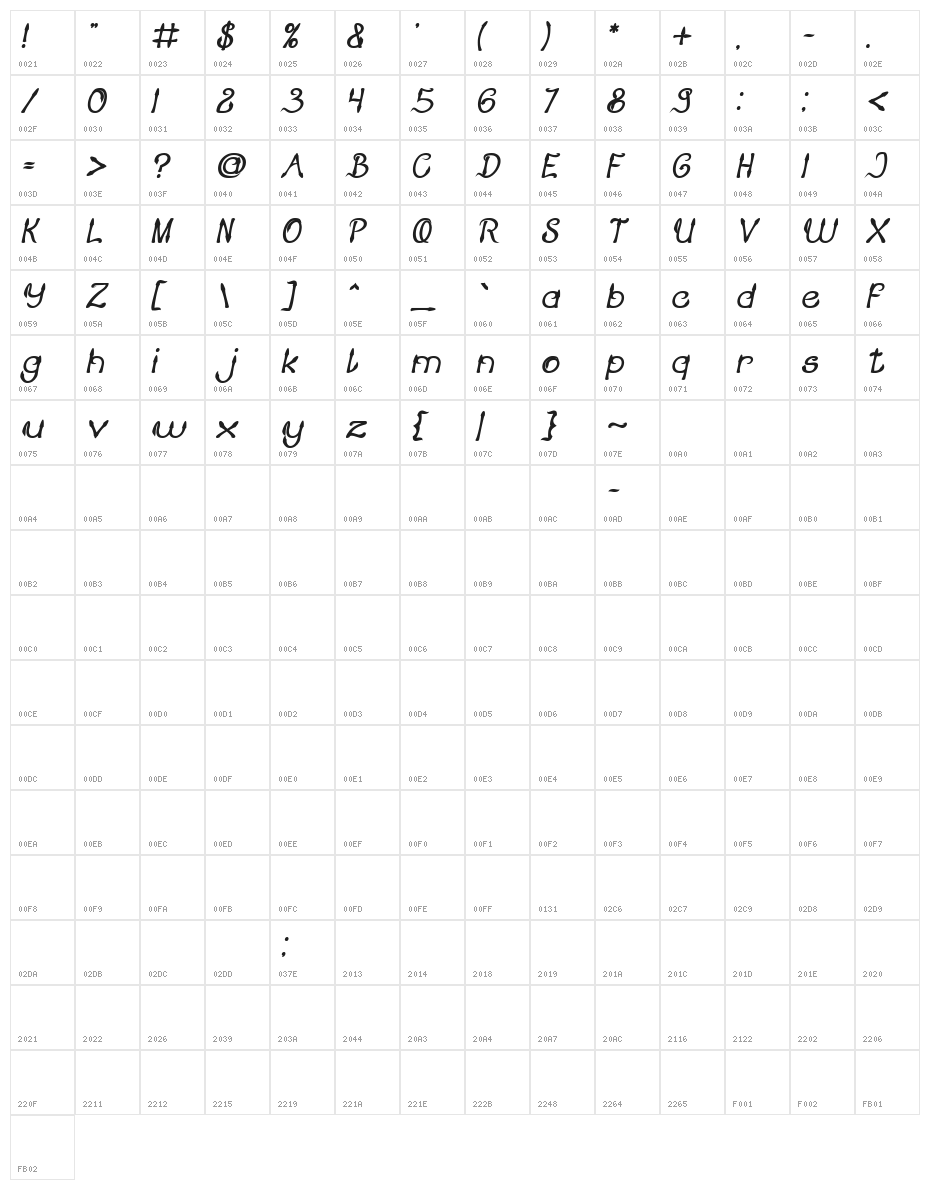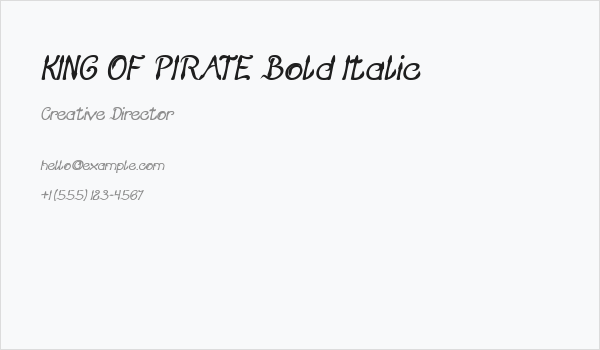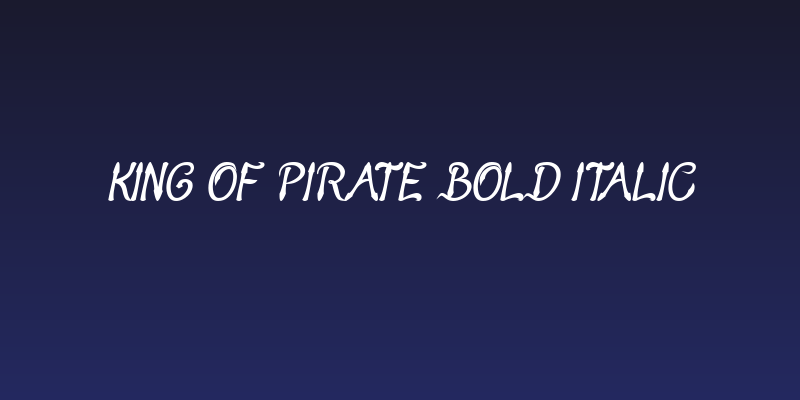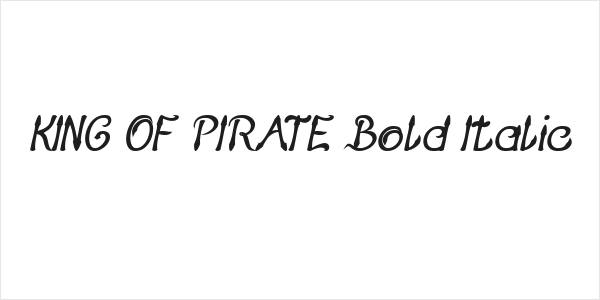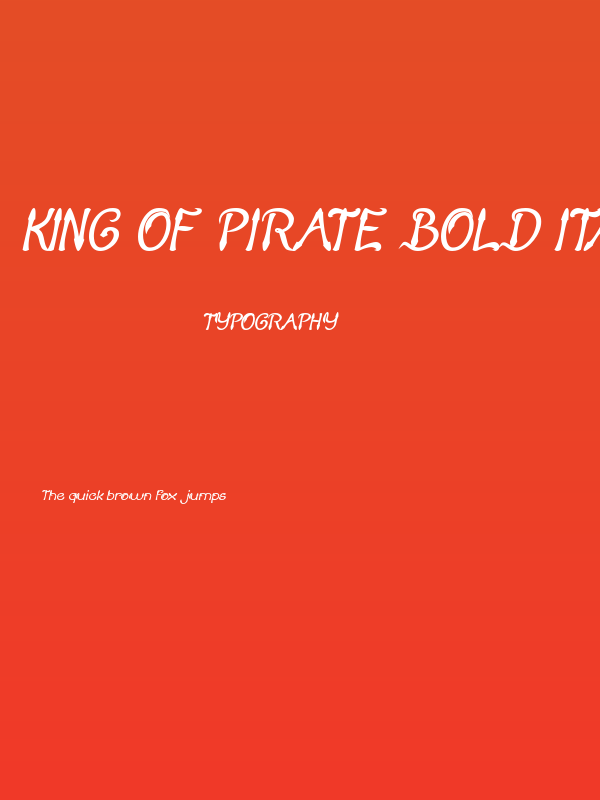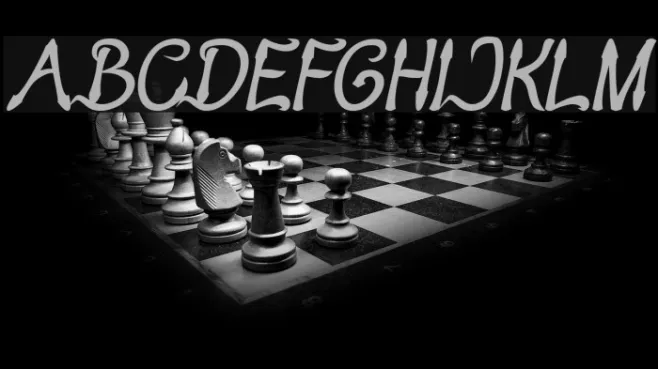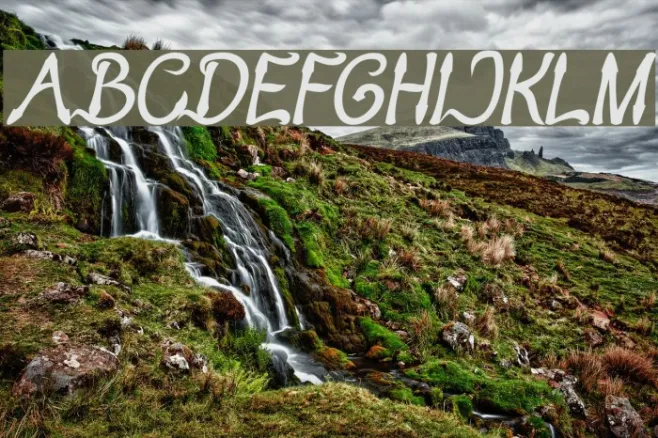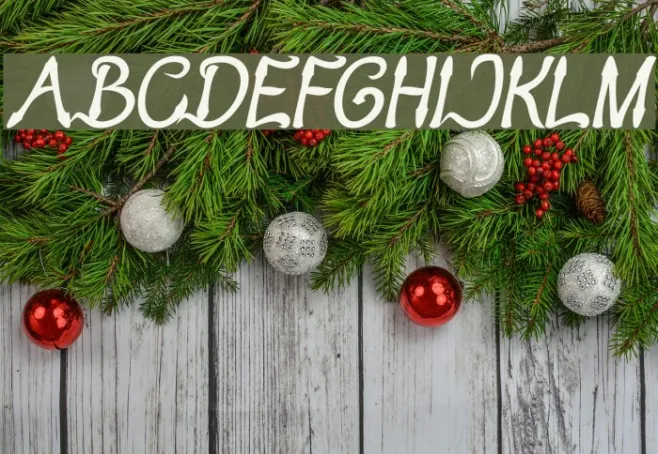
KING OF PIRATE Bold Italic Font
KING OF PIRATE Bold Italic Description
This font features a bold and italicized script style with a playful and adventurous flair. The uppercase letters are dynamic and slightly slanted, giving a sense of movement and energy. The lowercase letters maintain a consistent flow, enhancing readability while retaining a unique character. Numbers and special characters are designed to match the overall style, ensuring cohesion across different uses. The font's boldness and italic nature make it stand out, suitable for eye-catching designs.
| Proposed Projects | Ideal for pirate-themed designs, adventure branding, playful posters, and creative invitations. |